Lípa Art Collection
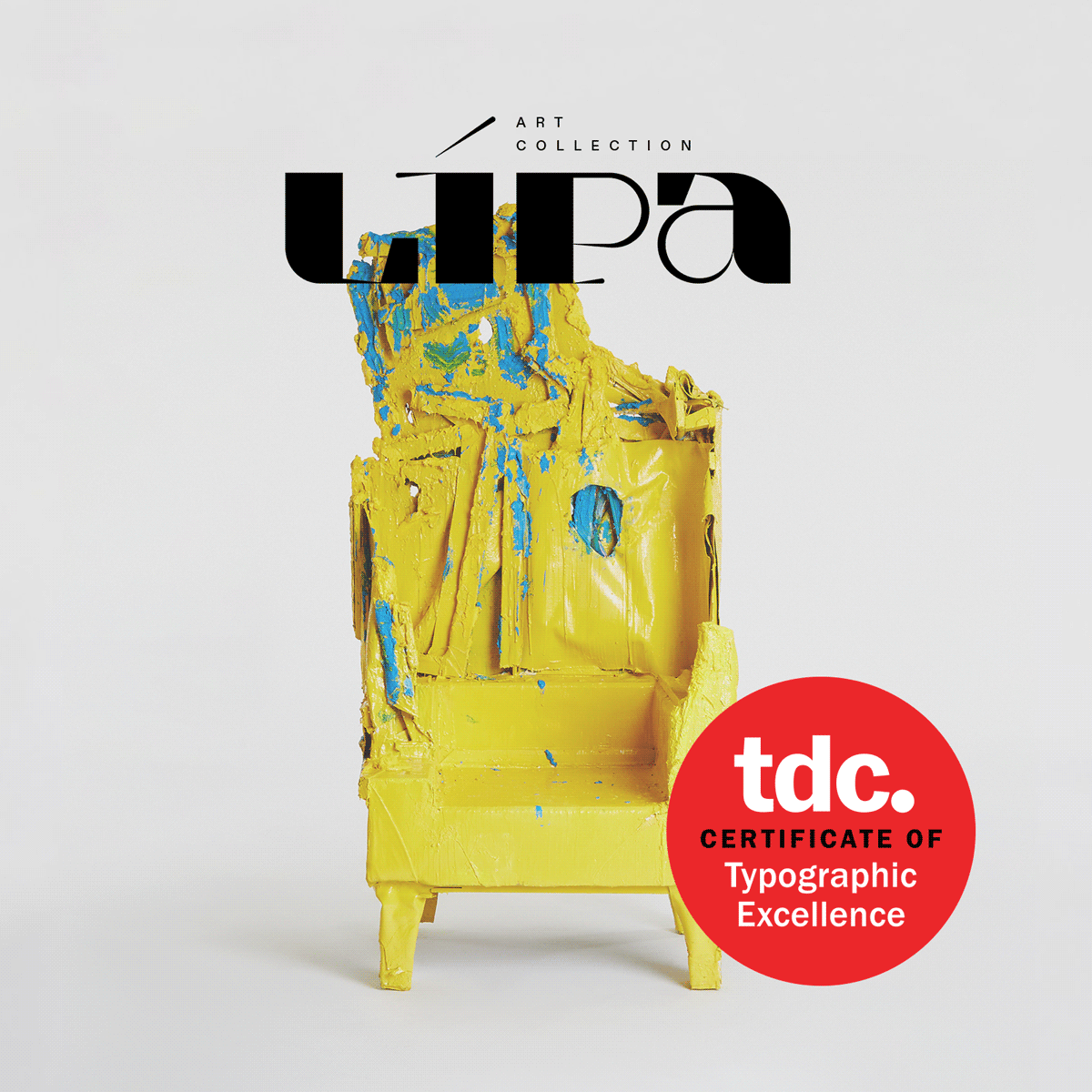
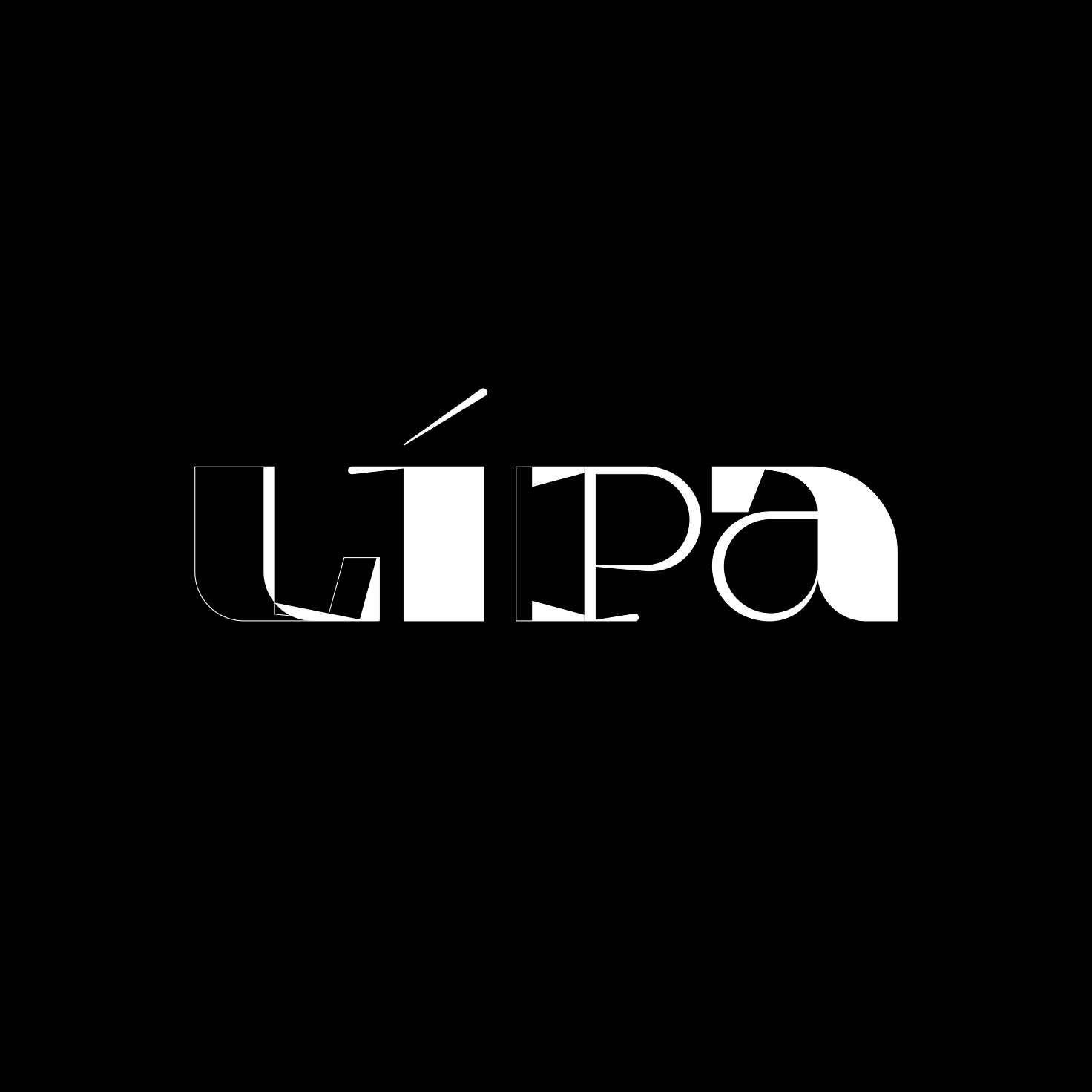
Our brand identity design was awarded excellence in typography by the Type Directors Club in New York City, featured in 8 exhibitions in major cities around the world, as well as in the publication ‘Typography 43: The World’s Best Type & Typography’ in 2022.
Custom Variable Logotype, Brand Identity System.
MatterMake
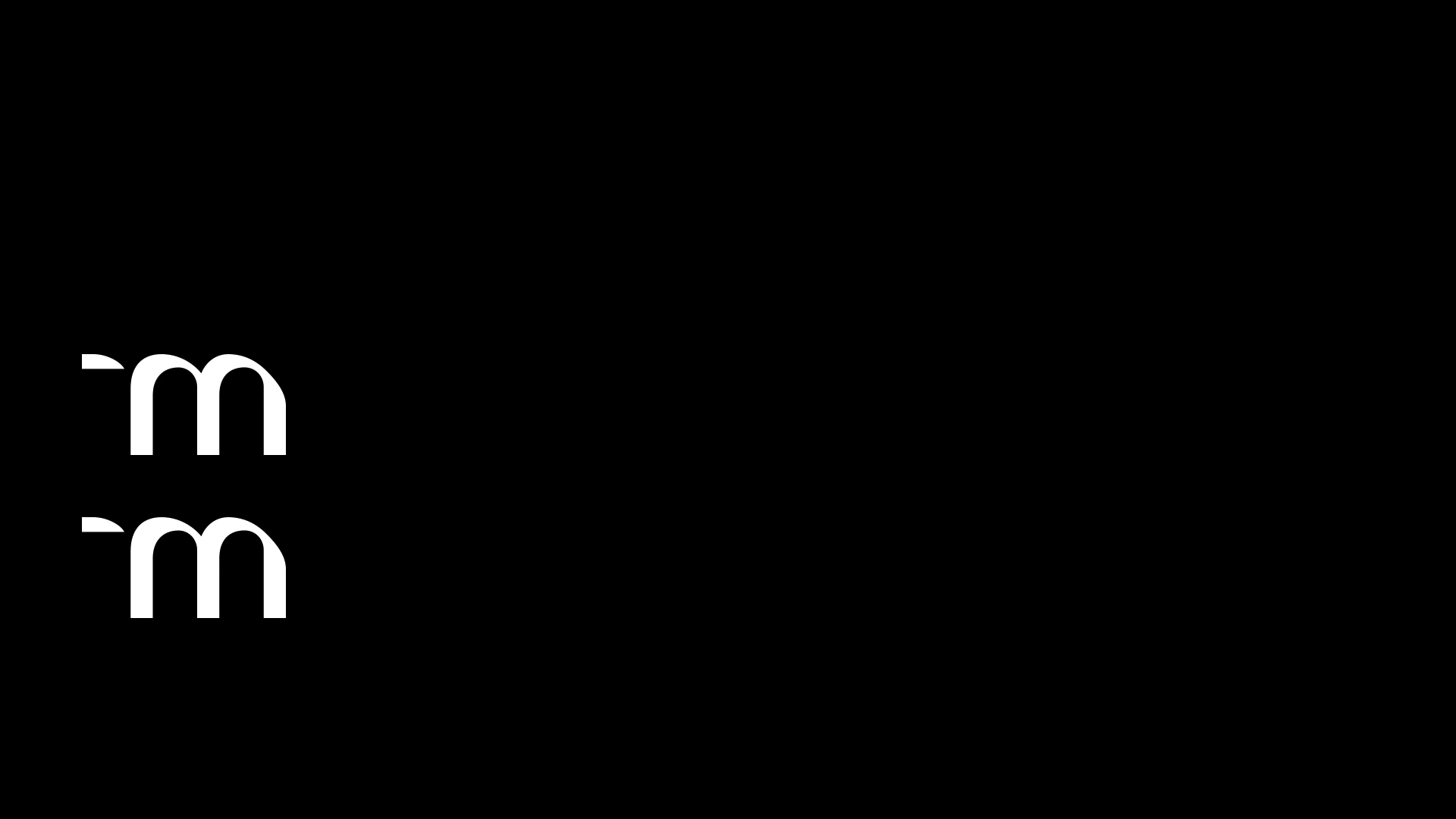
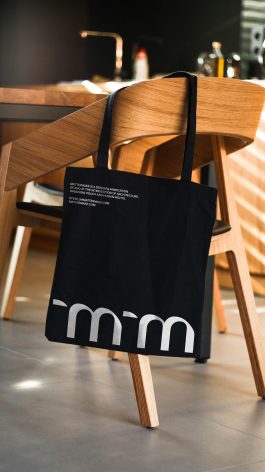
Mattermake is a holistic industrial design studio: they design, fabricate & install bespoke interiors, architecture, furniture & installations for a wide range of projects and budgets. For the identity, we wanted to build a versatile design system through a custom logotype, which embraces their process, tools & design language.
Brand Identity System, Custom Logotype, Web Design, Print.
Jet it!
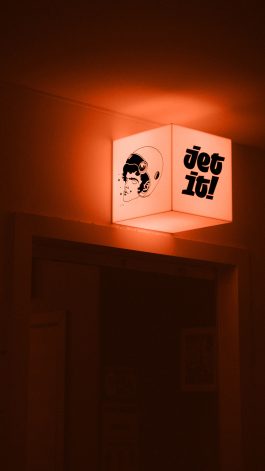
Jet it! Is a delivery app focused on home food take-out delivery. We wanted to stand out from the competition by using a fun, quirky and bold visual language, which is easily spotted on the road, and online. We came up with an interpretation on the Jet idea to take inspiration from Retrofuturism, to make it feel like a vintage collectable, but still fresh, fun and energetic, creating a custom logotype & brand mark, along with a range of illustrations & icons.
Custom Logotype, Brand Identity System, Web & App Design, Print.
Maker Labs
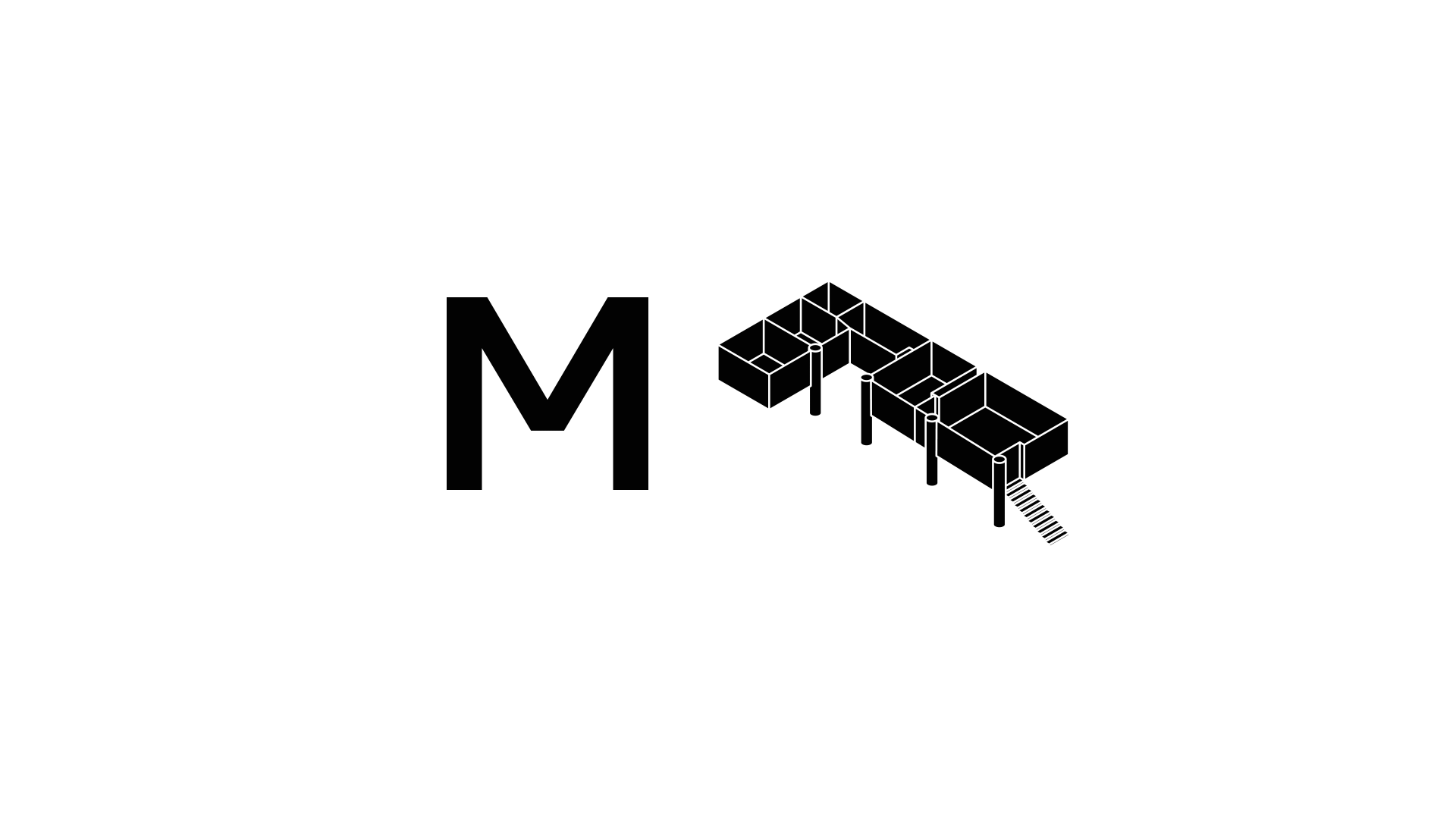
Maker Labs is a community-oriented maker space, where creatives, designers, engineers, and other industry professionals can collaborate and have access to specialized tools & equipment. We wanted to create an identity that felt like it can be a blank canvas for creatives to make their own: simple, but versatile to fit varying circumstances, styles, and disciplines. This included a versatile brand system, diagrams, iconography, and the custom mono-width typeface “Maker Mono”.
Custom Typeface, Brand Identity System, Print.